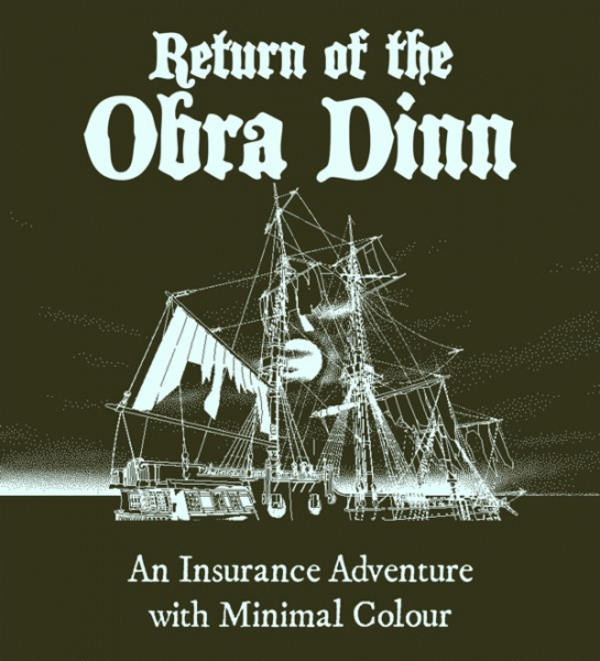
Return of the Obra Dinn Font
Fonts in UseReturn of the Obra Dinn is a puzzle video game developed by Lucas Pope. The game's premise involves investigating the fate of the crew of a fictional East India Company ship called the Obra Dinn through a magical pocket watch that can reveal the moment of a person's death.
The font used in the game logo resembles Dieter Steffmann's "Blackwood Castle" font. Whereas, the descriptive text "An Insurance Adventure with Minimal Colour" is presented in Igino Marini's "IM FELL DW Pica Roman" font. Both fonts are available free of cost here at FontGet.